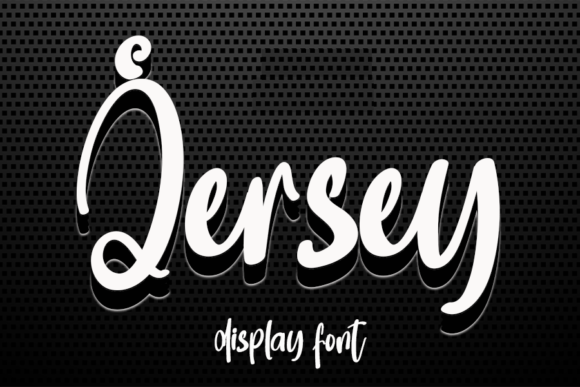
About Jersey Font
Jersey font is a stylish handwritten calligraphy script that perfectly balances timeless elegance with modern flair. Its clean, flowing lines and well-crafted letterforms create a sophisticated atmosphere ideal for a variety of design projects. Inspired by classic calligraphy, Jersey font brings a fresh and contemporary vibe that elevates any creative work.
A Blend of Tradition and Modern Style
The Jersey font beautifully combines the grace of traditional calligraphy with a trendy, handwritten look. This balance allows it to maintain a timeless charm while fitting seamlessly into current design trends. The result is a font that feels both classic and modern, making it a versatile choice for designers across different industries.
Perfect for Wedding and Branding Designs
Jersey font shines in wedding invitations, thank you cards, and greeting cards where an elegant and personal touch is essential. Additionally, it works wonderfully for branding projects, logos, business cards, and product packaging, adding a sense of sophistication and refinement. Its stylish form makes marketing materials and social media graphics more eye-catching and memorable.
Versatile and Easy to Use
Thanks to its impeccable form, Jerseyfont is highly readable and adaptable. It suits both digital and print media, making it an excellent choice for diverse projects such as posters, flyers, stationery, and more. Whether you want to create a warm invitation or a bold brand statement, Jerseyfont provides the perfect handwritten style to make your designs stand out.
Why Choose Jersey Font?
Choosing Jerseyfont means selecting a beautifully crafted handwritten script that enhances any design with elegance and class. Its unique combination of classic calligraphy inspiration and contemporary style ensures your creative projects will look polished and professional. Jerseyfont is a valuable addition to any designer’s toolkit, ready to bring charm and sophistication to logos, invitations, branding, and beyond.